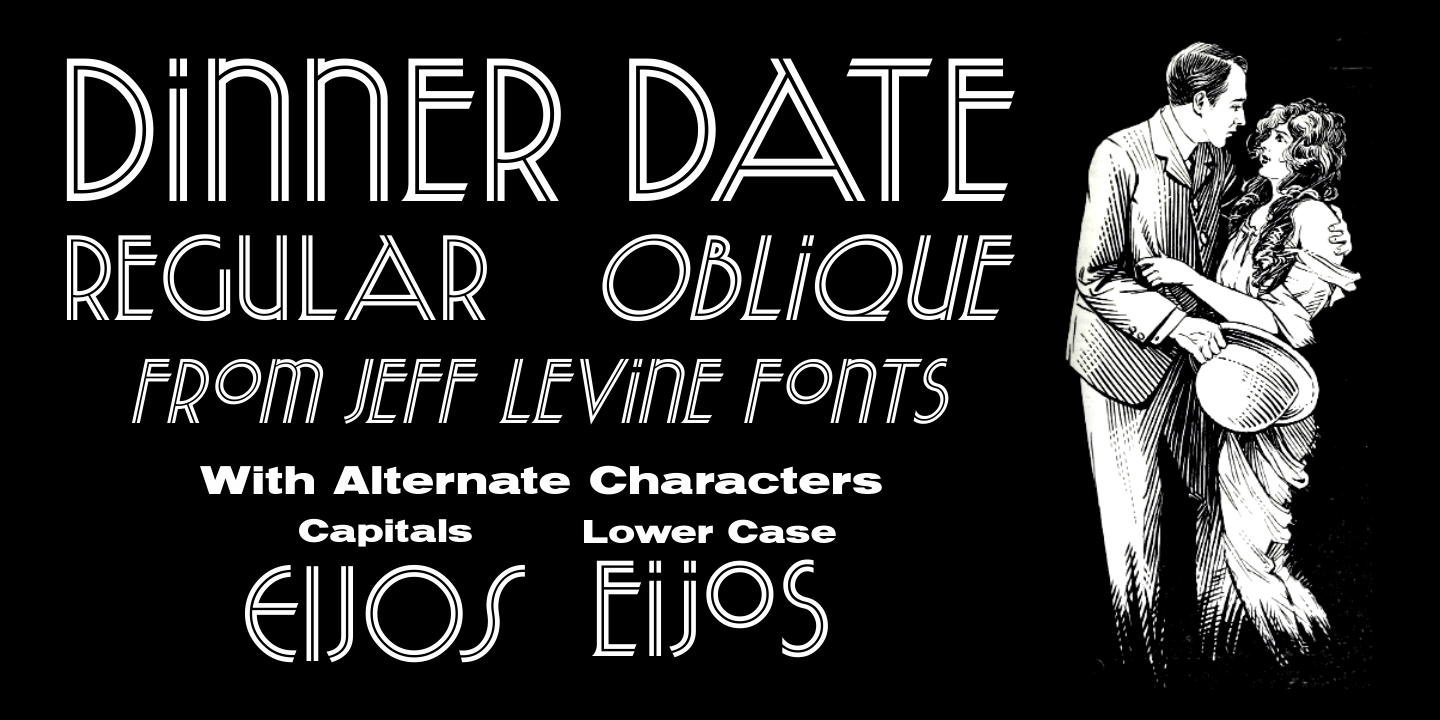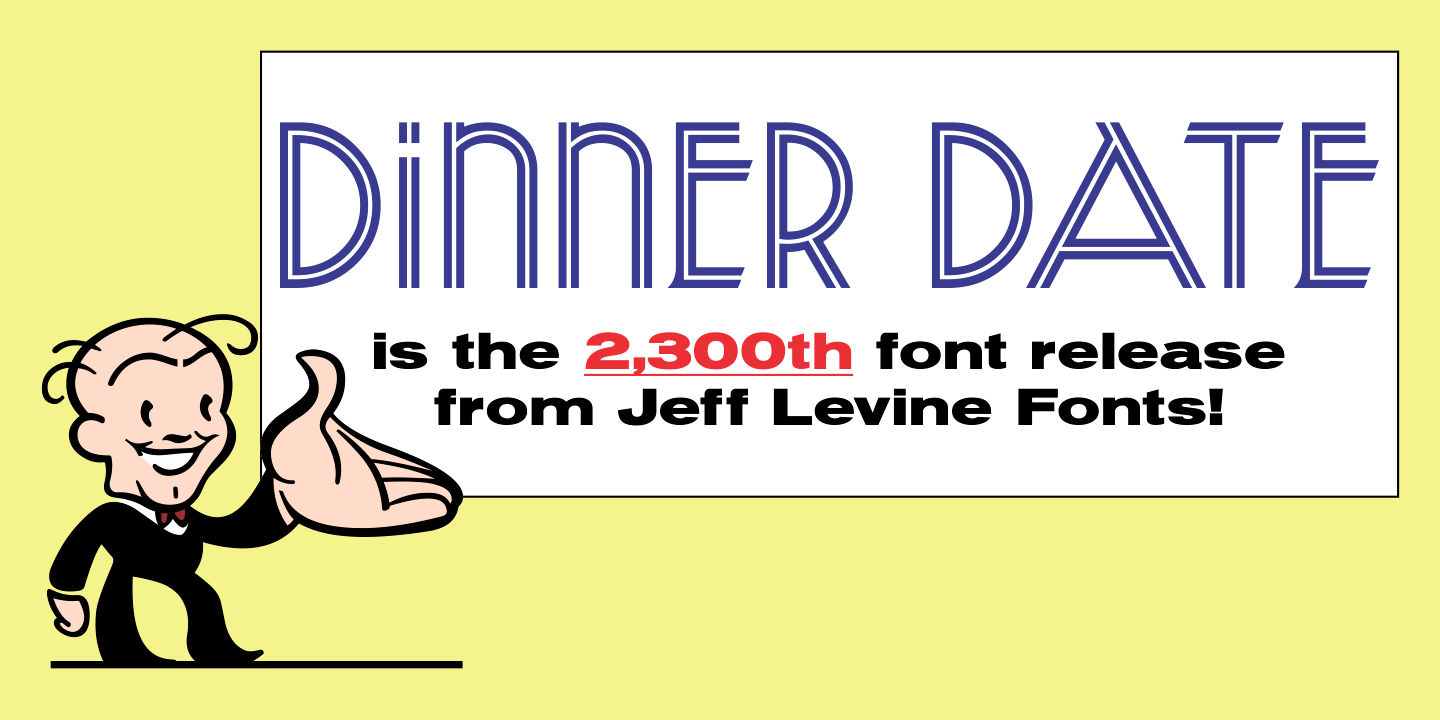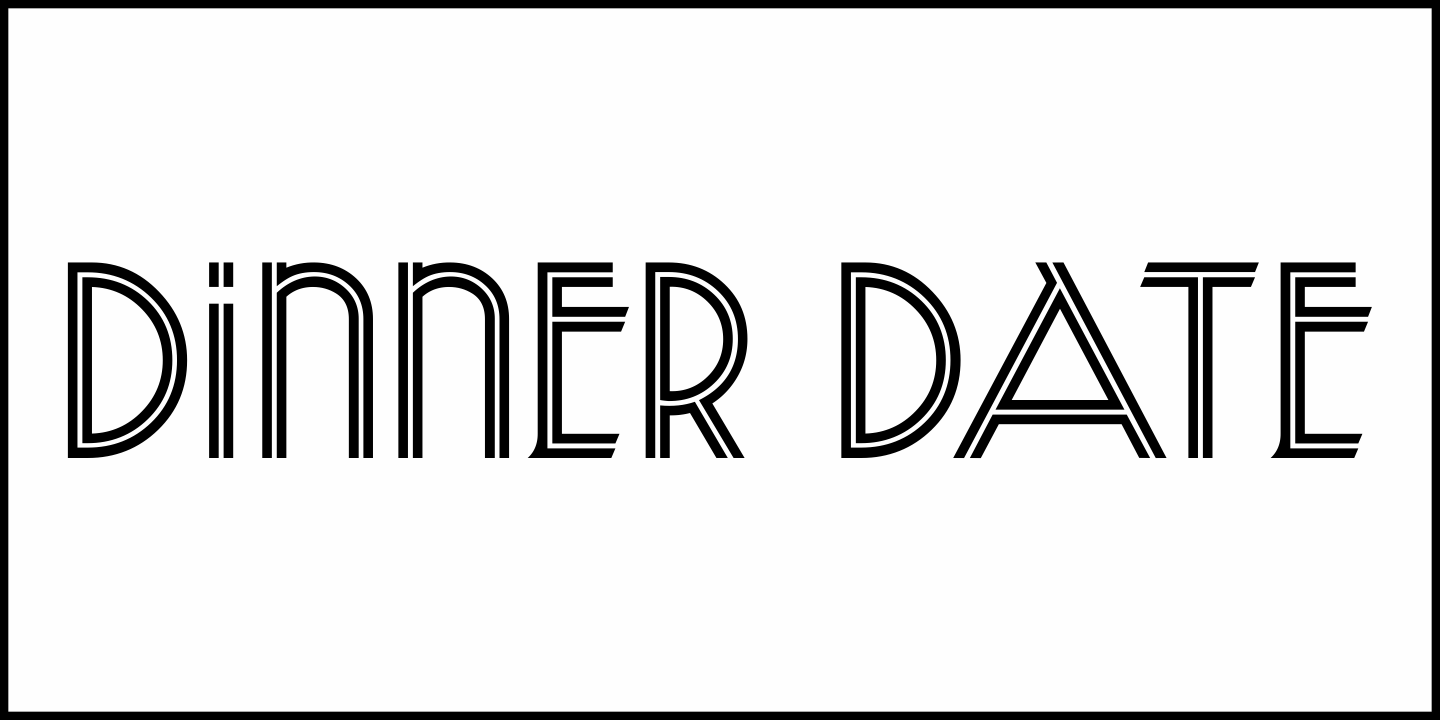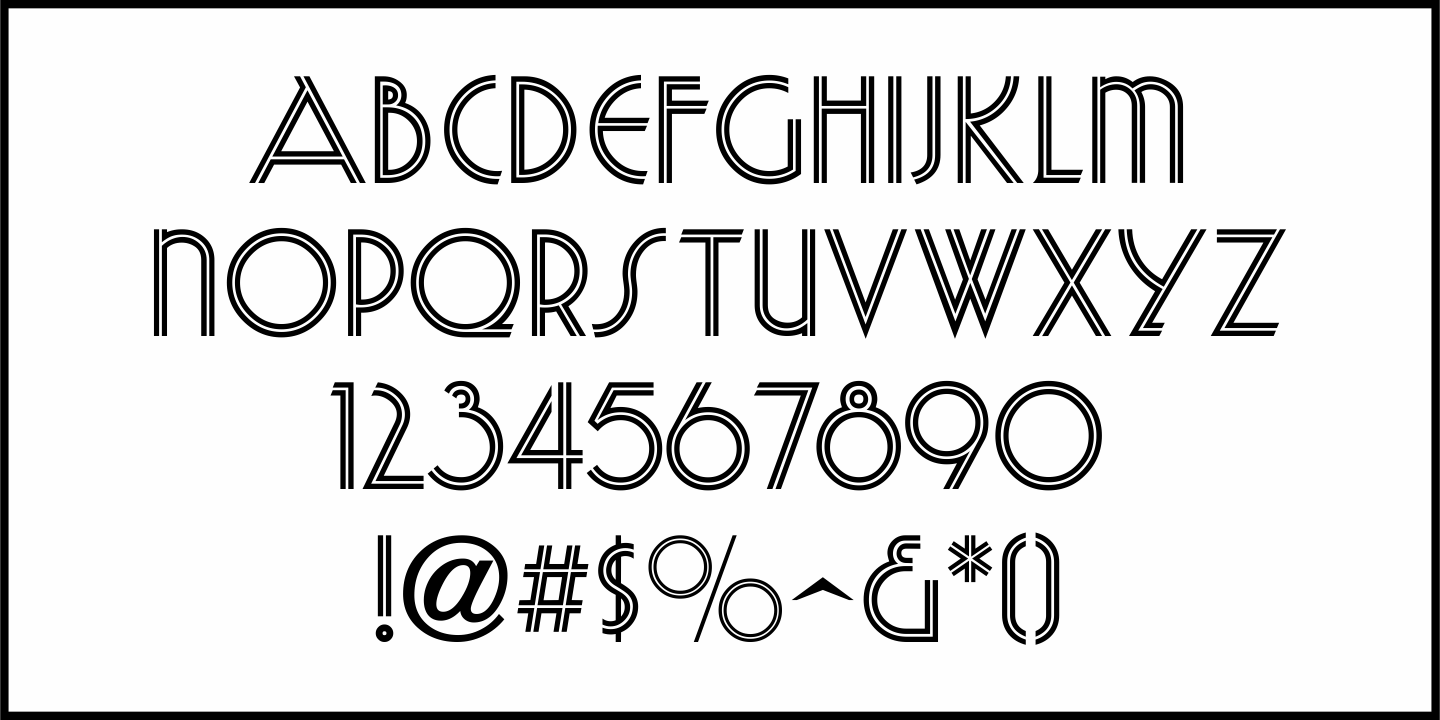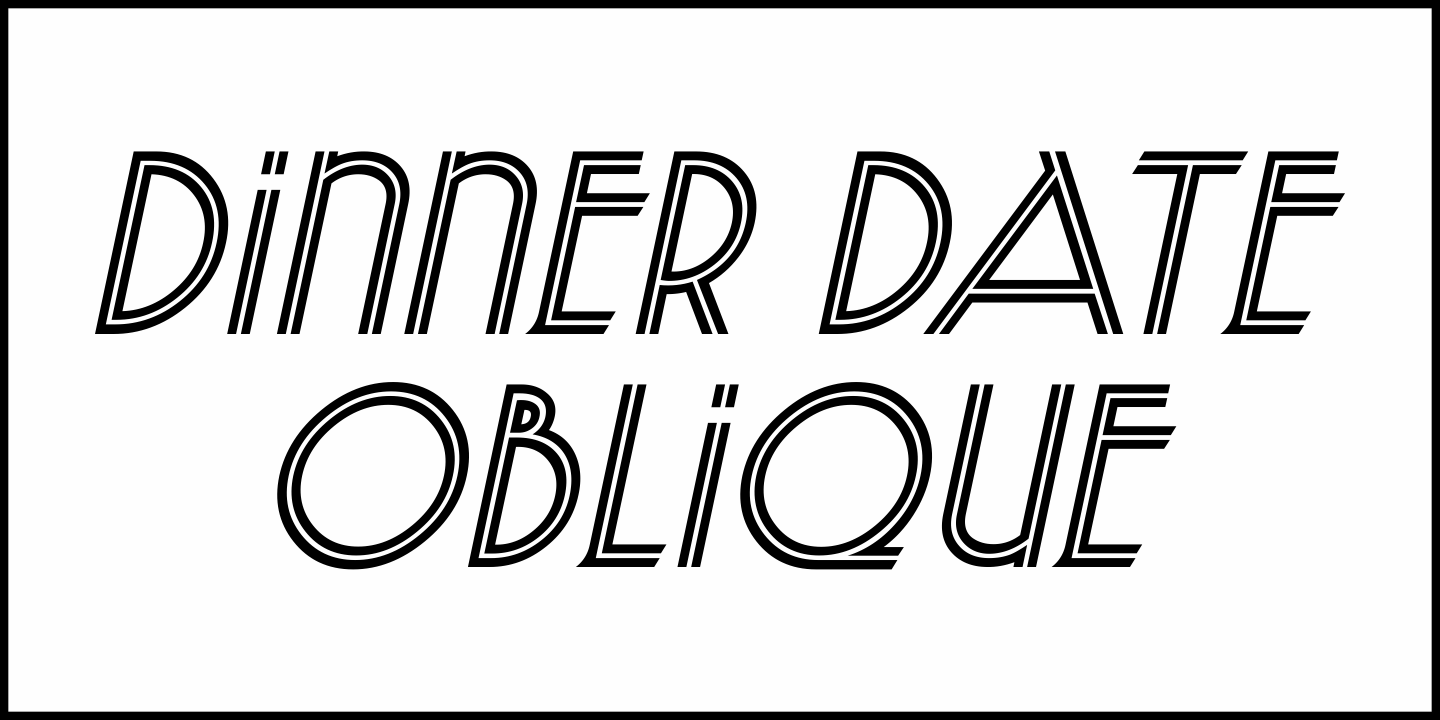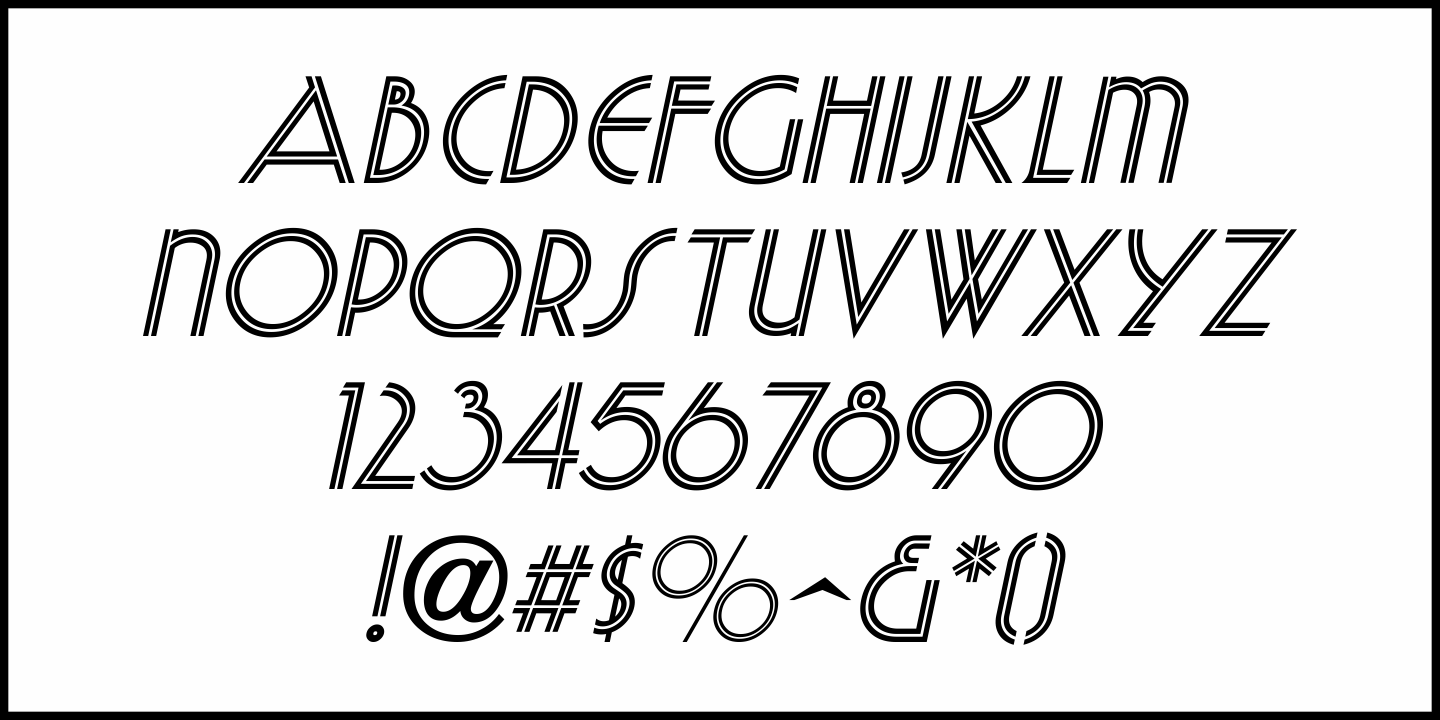
Dinner Date
A 1932 book entitled "The Design of Lettering" by Egon Weiss showcases an Art Deco type style called 'Parisian Elite'which was  attributed to Clarence Hornung.  This elegant dual line sans display face has been digitally redrawn as Dinner Date JNL and is available in both regular and oblique versions; featuring alternate characters on the lower case 'e','i,'j','o' and 's' keys.
Dinner Date JNL is the 2,300th font released by Jeff Levine Fonts since its inception in January of 2006.